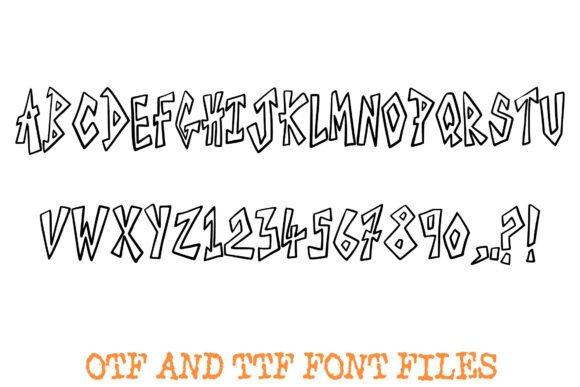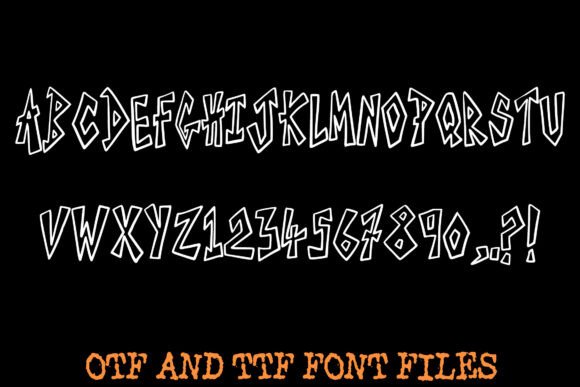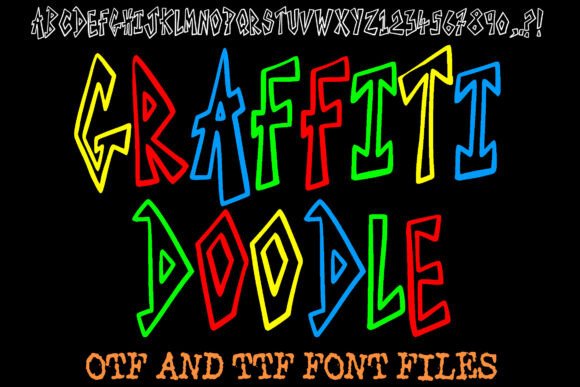
Unleash Your Creativity with Graffiti Doodle Font
Are you looking for a font that adds a bold, playful, and urban touch to your designs? Look no further than the Graffiti Doodle Font, a display typeface that embodies the raw spirit of street art and urban doodle culture. With its sharp angles, irregular lines, and energetic hand-drawn style, this font is perfect for designers and crafters who want to add attitude and character to their projects.
Inspired by Street Art and Urban Doodles
The Graffiti Doodle Font is inspired by the vibrant and dynamic world of street art and urban doodles. Its bold and playful design captures the essence of graffiti, while maintaining a fun and cartoon-like edge. The font’s irregular strokes and freestyle forms make each letter feel alive, like sketches straight from a wall mural. Whether you’re working on a poster, album cover, branding project, or digital art piece, this font is sure to add a unique and eye-catching touch.
The Graffiti Doodle Font is versatile and can be used for a wide range of projects, including:
• Posters: Add a bold and playful touch to your posters with this eye-catching font.
• Album Covers: Give your music project a unique and urban look with Graffiti Doodle.
• Branding: Use this font to add a touch of personality and attitude to your brand’s identity.
• Apparel: Create bold and stylish apparel with this fun and playful font.
• Stickers: Add a pop of color and personality to your stickers with Graffiti Doodle.
• Digital Art: Use this font to add a touch of urban authenticity to your digital art pieces.
Key Features of Graffiti Doodle Font
• Bold and Playful Design: The Graffiti Doodle Font features a bold and playful design that’s perfect for making a statement.
• Energetic Hand-Drawn Style: The font’s energetic hand-drawn style gives it a unique and authentic look.
• Irregular Strokes and Freestyle Forms: The font’s irregular strokes and freestyle forms make each letter feel alive and dynamic.
• Urban Authenticity: The Graffiti Doodle Font captures the raw spirit of graffiti and urban doodle culture, adding a touch of urban authenticity to your designs.
Why Choose Graffiti Doodle Font?
So, why choose the Graffiti Doodle Font for your next project? Here are just a few reasons:
• Unique and Eye-Catching: The Graffiti Doodle Font is a unique and eye-catching font that’s sure to grab attention.
• Versatile: The font is versatile and can be used for a wide range of projects, from print materials to digital applications.
• Adds Attitude and Character: The Graffiti Doodle Font adds attitude and character to every project, making it perfect for designers and crafters who want to create something bold and unique.
In conclusion, the Graffiti Doodle Font is a bold and playful display typeface that’s perfect for designers and crafters who want to add a touch of urban authenticity and creativity to their projects. With its unique and eye-catching design, versatile file formats, and easy-to-use features, this font is sure to become a go-to choice for anyone looking to add attitude and character to their designs. So, why wait? Download the Graffiti Doodle Font today and unleash your creativity!